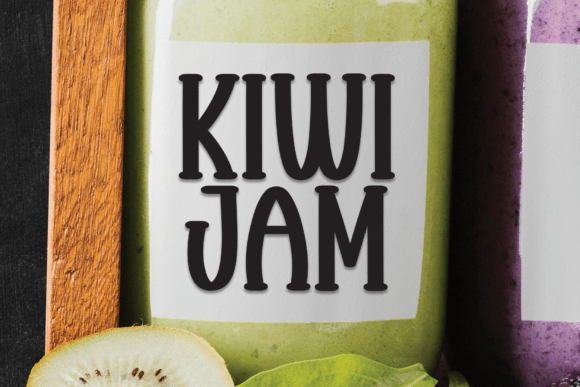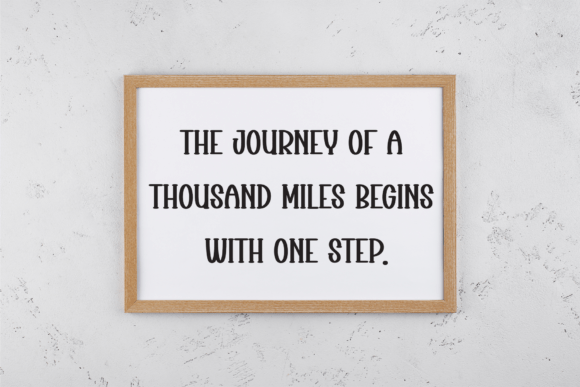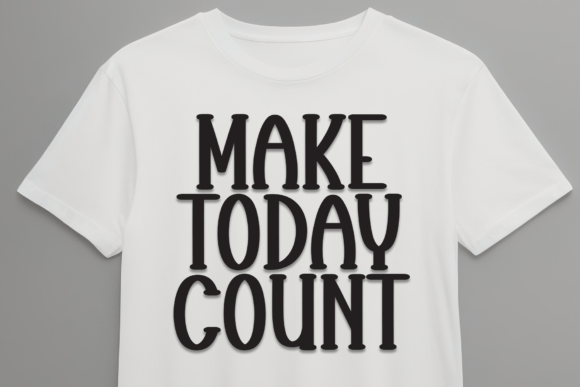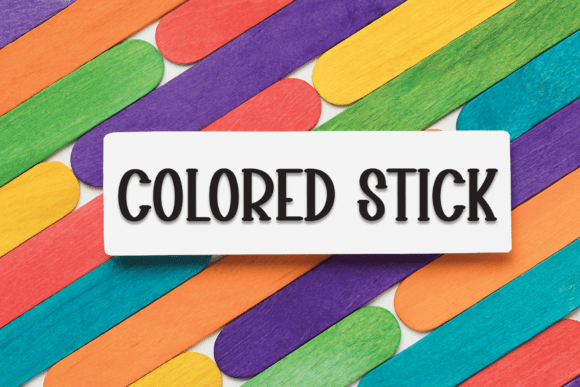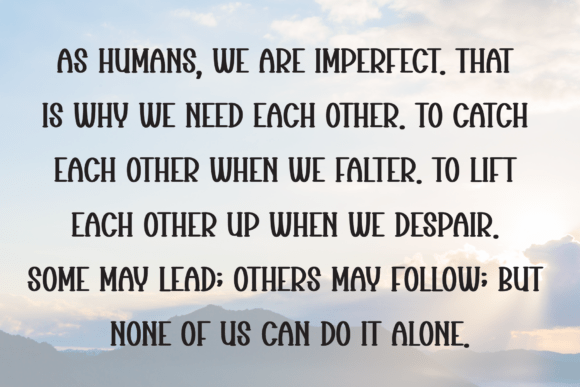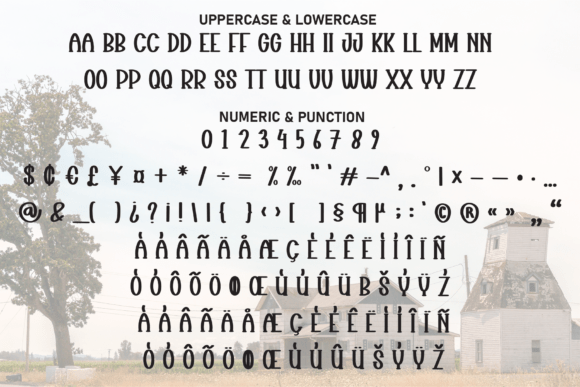
Introducing Farmhouse Font: A Charming Display Handwritten Font
Are you looking for a font that adds a personal touch to your designs? Do you want to create eye-catching logos, social media graphics, and posters that stand out from the crowd? Look no further than Farmhouse Font, a display handwritten font that bursts with personality and charm.
Farmhouse Font is a carefully crafted display handwritten font that captures the warmth of real handwriting with bold, eye-catching strokes. Its unique design makes it perfect for adding a personal touch to your designs, whether you’re creating logos, social media graphics, posters, or any other visual material that calls for a expressive and authentic look.
- Handwritten with love: Farmhouse Font is designed to mimic the natural flow of handwriting, giving your designs a personal and heartfelt touch.
- Bold and eye-catching: The font’s bold strokes make it perfect for creating eye-catching designs that stand out from the crowd.
- Natural flow: Farmhouse Font is designed to maintain a natural flow, making it easy to read and understand.
- Versatile: This font is perfect for a wide range of design projects, from logos and social media graphics to posters and more.
Why Choose Farmhouse Font?
There are many reasons why Farmhouse Font is the perfect choice for your design projects. Here are just a few:
- Adds a personal touch: Farmhouse Font brings a personal touch to your designs, making them more relatable and engaging.
- Authentic look: The font’s handwritten design gives your designs an authentic look that’s perfect for crafting heartfelt quotes, branding creative products, and more.
- High-quality design: The font is carefully crafted to ensure high-quality design that’s perfect for both digital and print projects.
Farmhouse Font is perfect for designers and crafters who want to add a personal touch to their designs. Whether you’re creating logos, social media graphics, posters, or any other visual material, this font is sure to impress.
Designers can use Farmhouse Font to:
- Create eye-catching logos that stand out from the crowd
- Design social media graphics that engage and inspire
- Develop posters that grab attention and convey a message
Crafters can use Farmhouse Font to:
- Add a personal touch to their handmade products
- Create unique and eye-catching labels and packaging
- Develop branding materials that reflect their personality and style
Here are a few tips for using Farmhouse Font in your designs:
- Use it sparingly: Farmhouse Font is a bold font, so use it sparingly to avoid overwhelming your design.
- Pair it with other fonts: Pair Farmhouse Font with other fonts to create a unique and eye-catching design.
- Experiment with colors: Experiment with different colors to find the perfect combination that works with your design.
Farmhouse Font is a charming display handwritten font that’s perfect for designers and crafters who want to add a personal touch to their designs. With its bold, eye-catching strokes and natural flow, this font is sure to impress. Whether you’re creating logos, social media graphics, posters, or any other visual material, Farmhouse Font is the perfect choice.